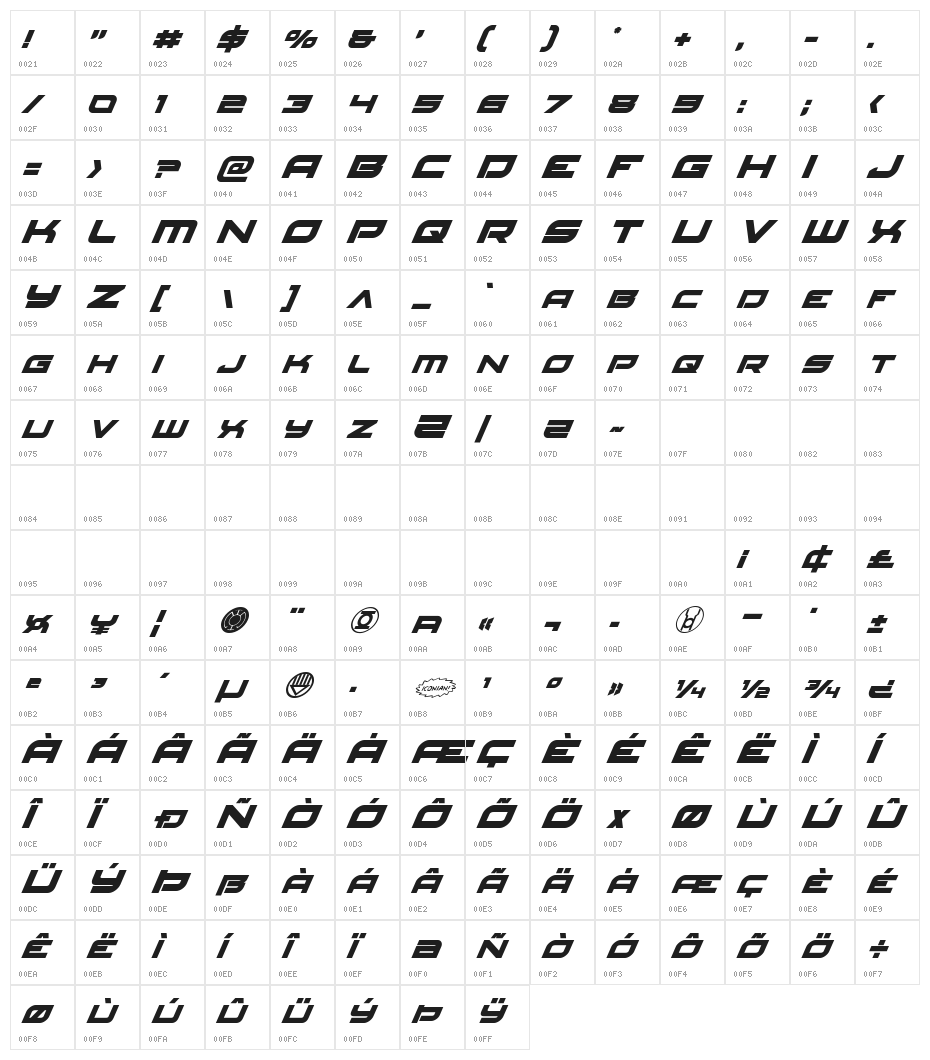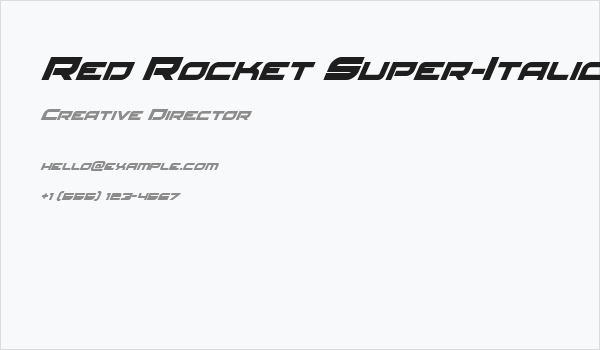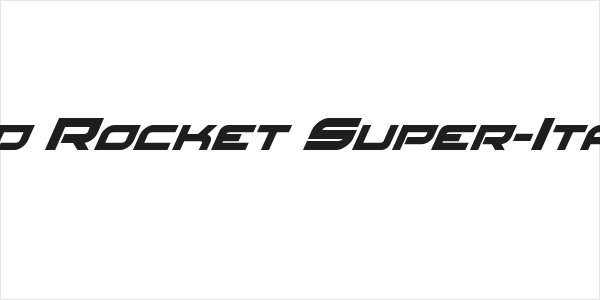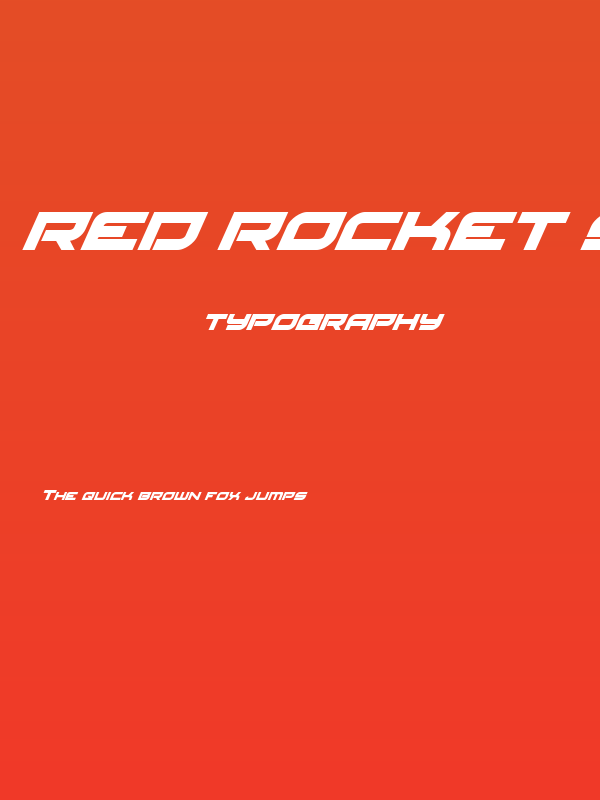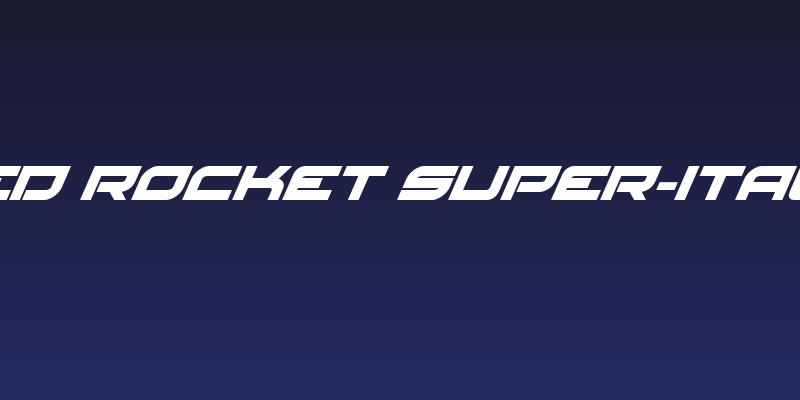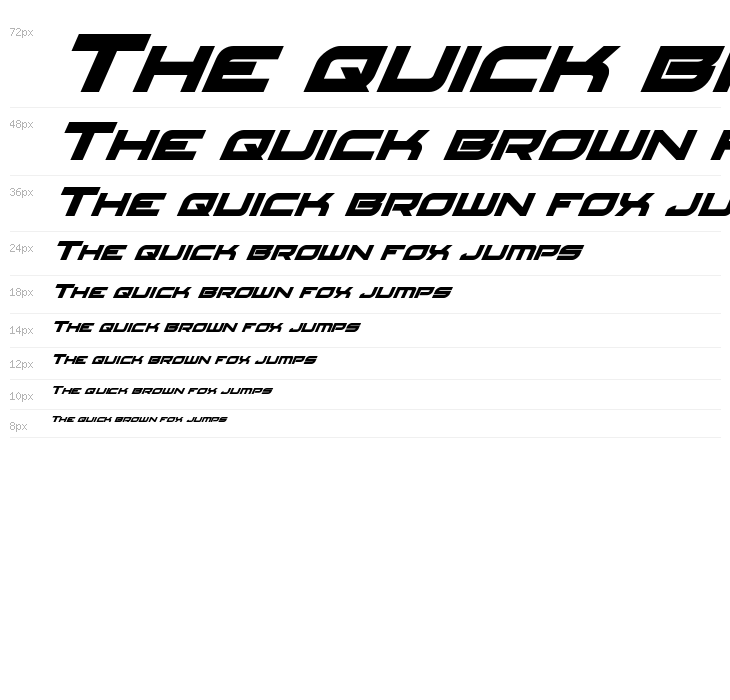
Red Rocket Super-Italic Font
Red Rocket Super-Italic Description
This font features a dynamic and futuristic design with a strong italic slant, giving it a sense of motion and speed. The characters are bold and angular, with sharp edges and a streamlined appearance. The uppercase and lowercase letters maintain a consistent style, while the numbers and special characters integrate seamlessly with the overall design. The font's modern aesthetic is ideal for projects that require a bold and energetic look.
| Proposed Projects | Ideal for use in technology branding, sports team logos, automotive advertisements, and video game titles. |